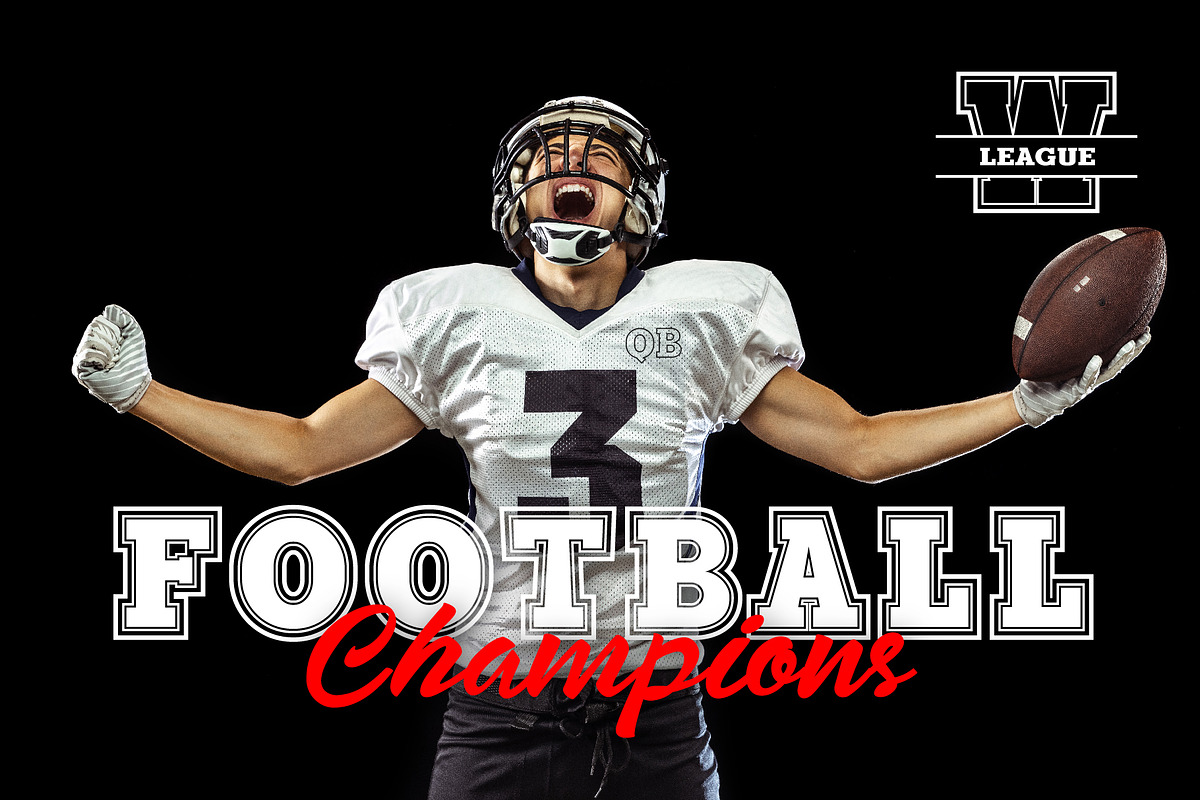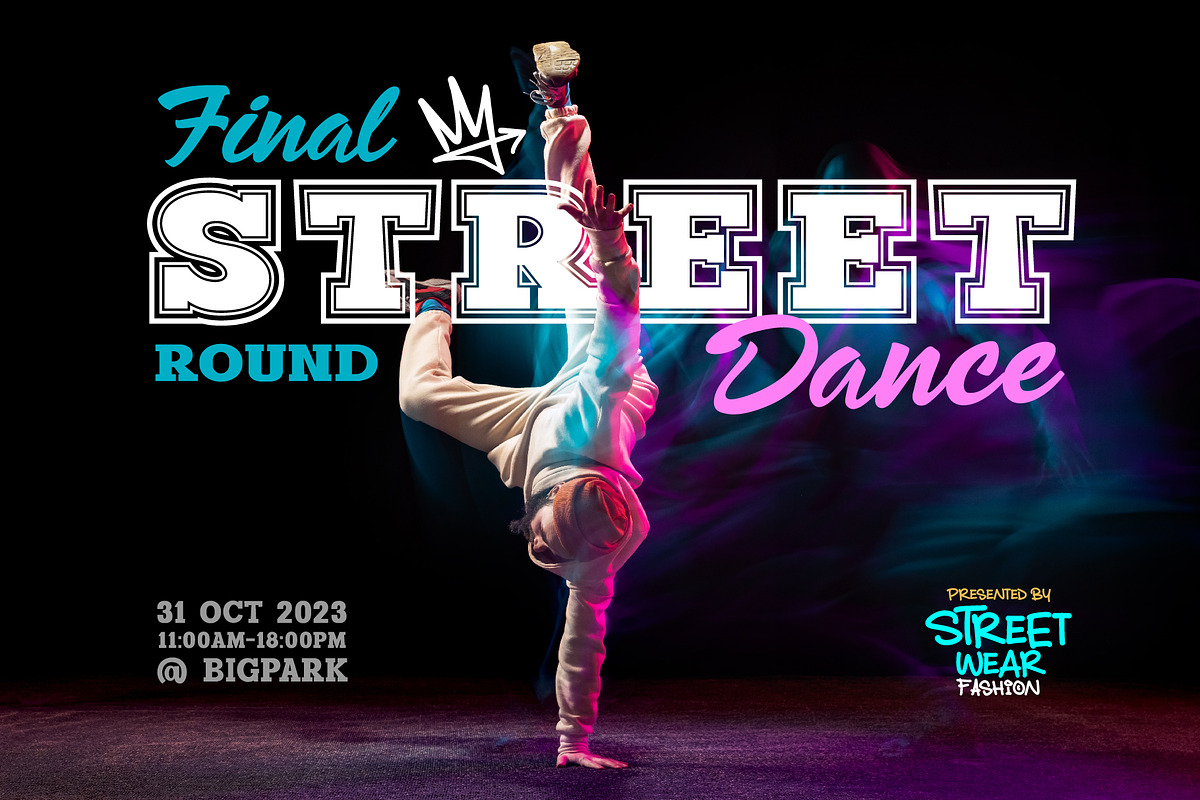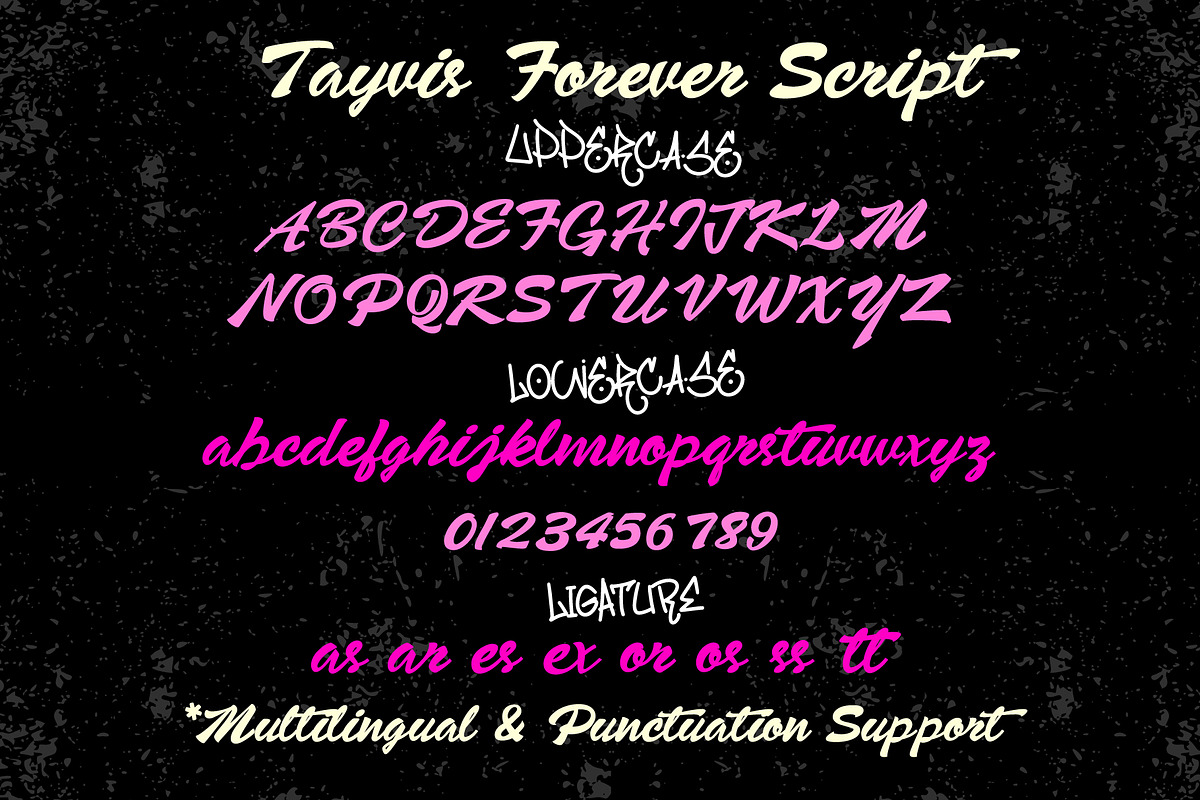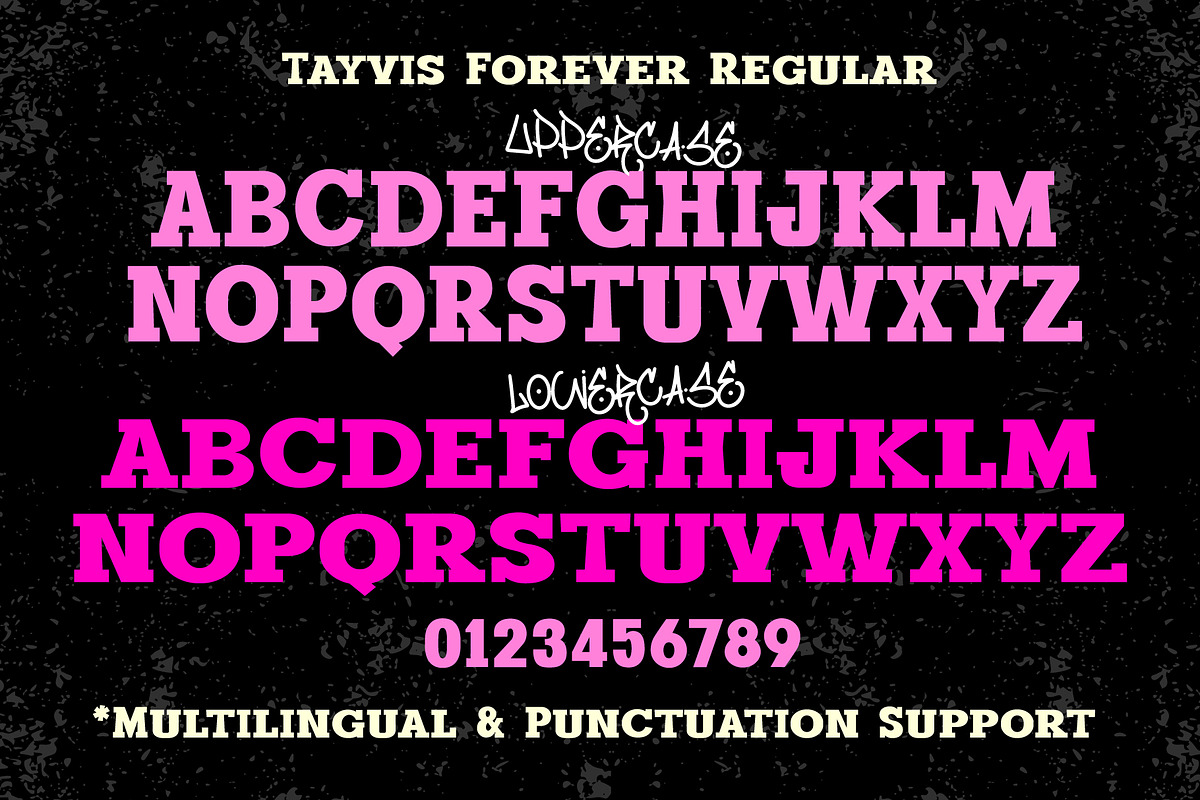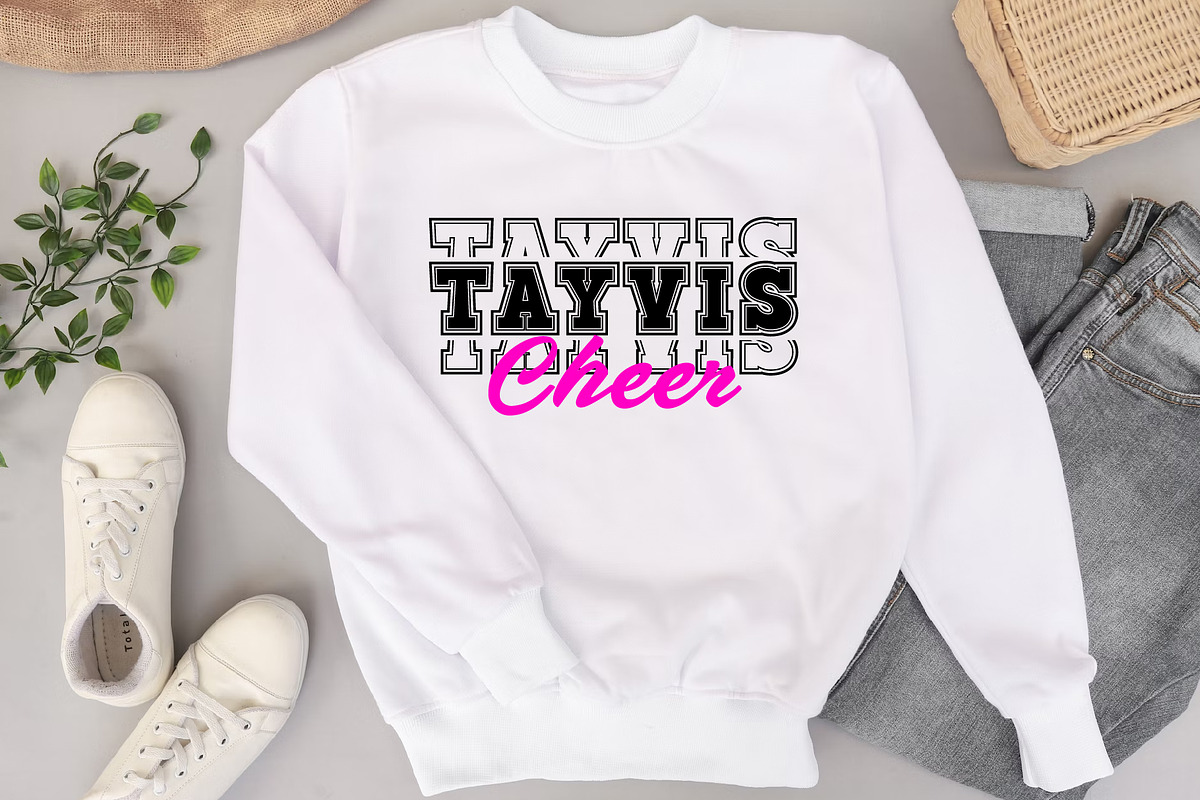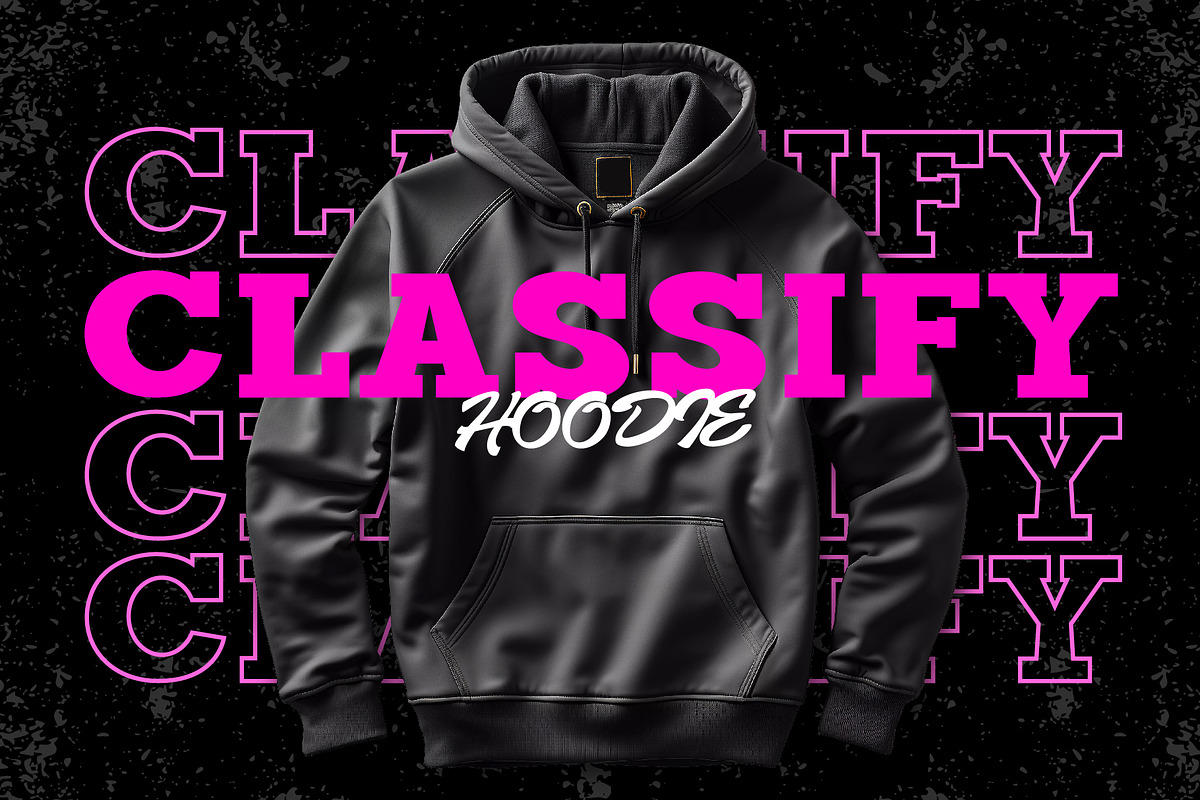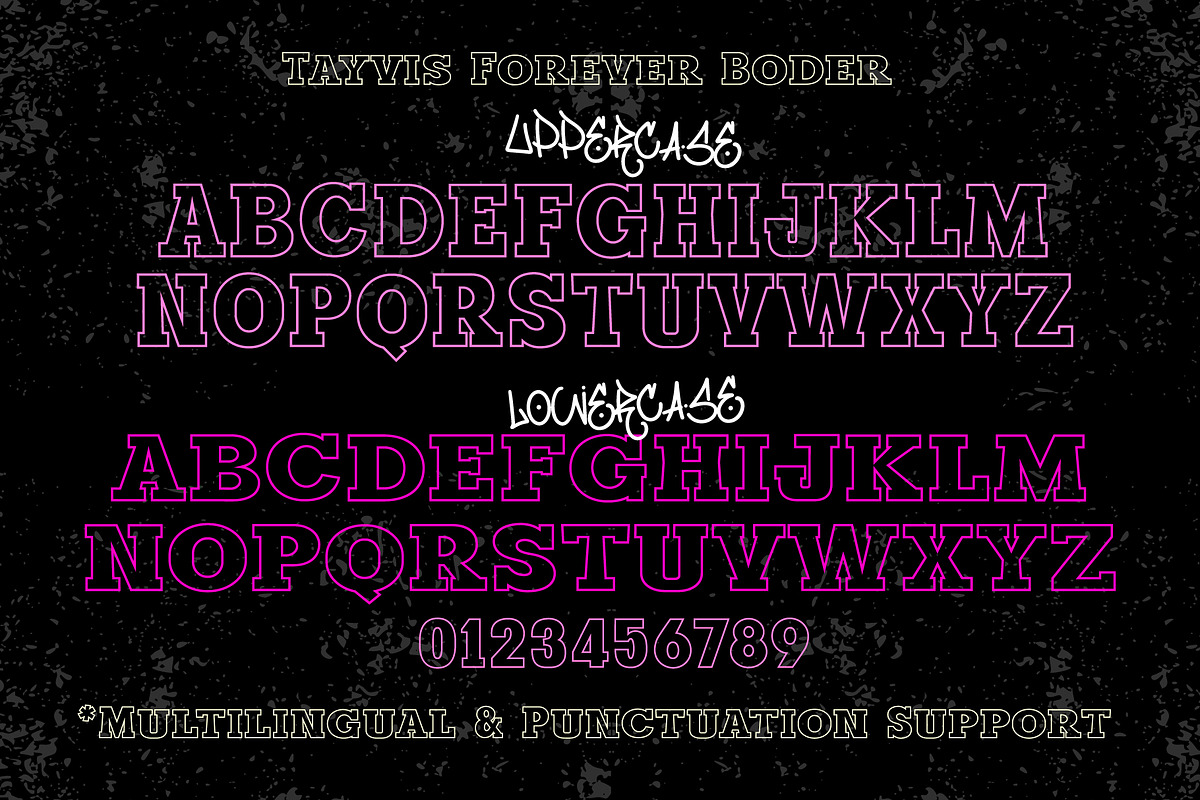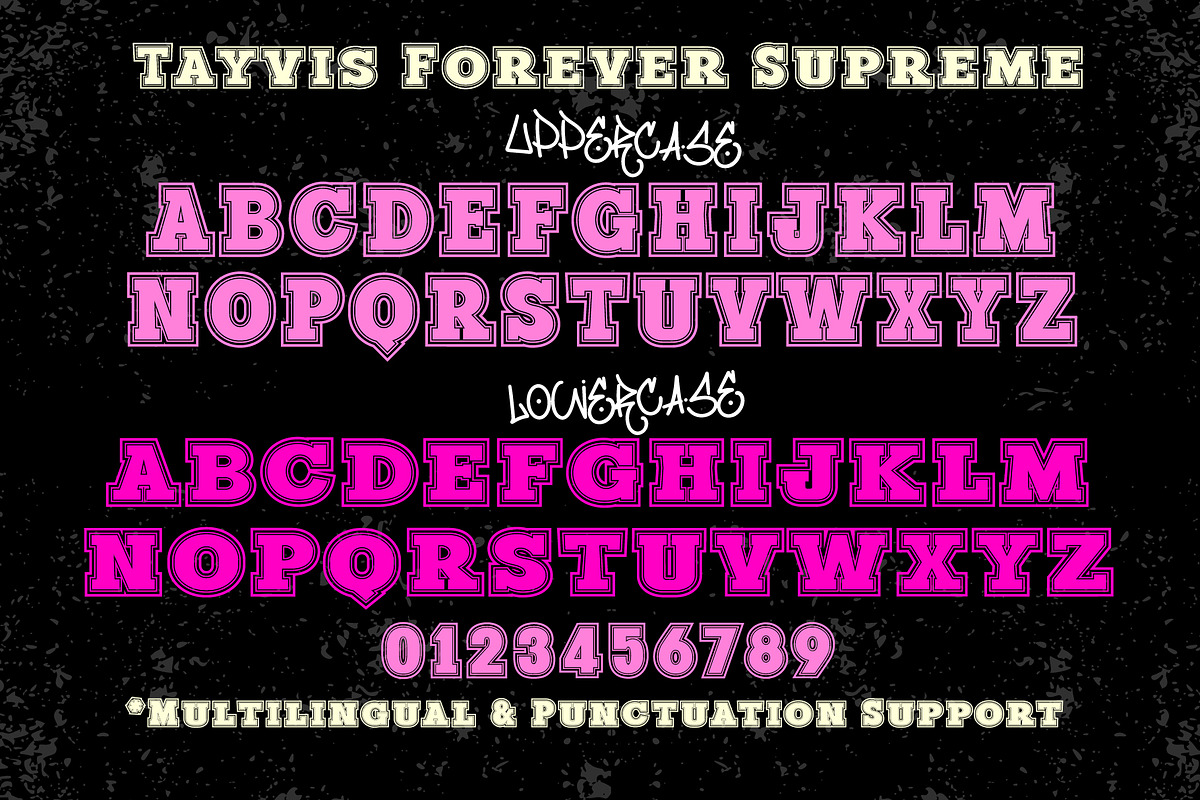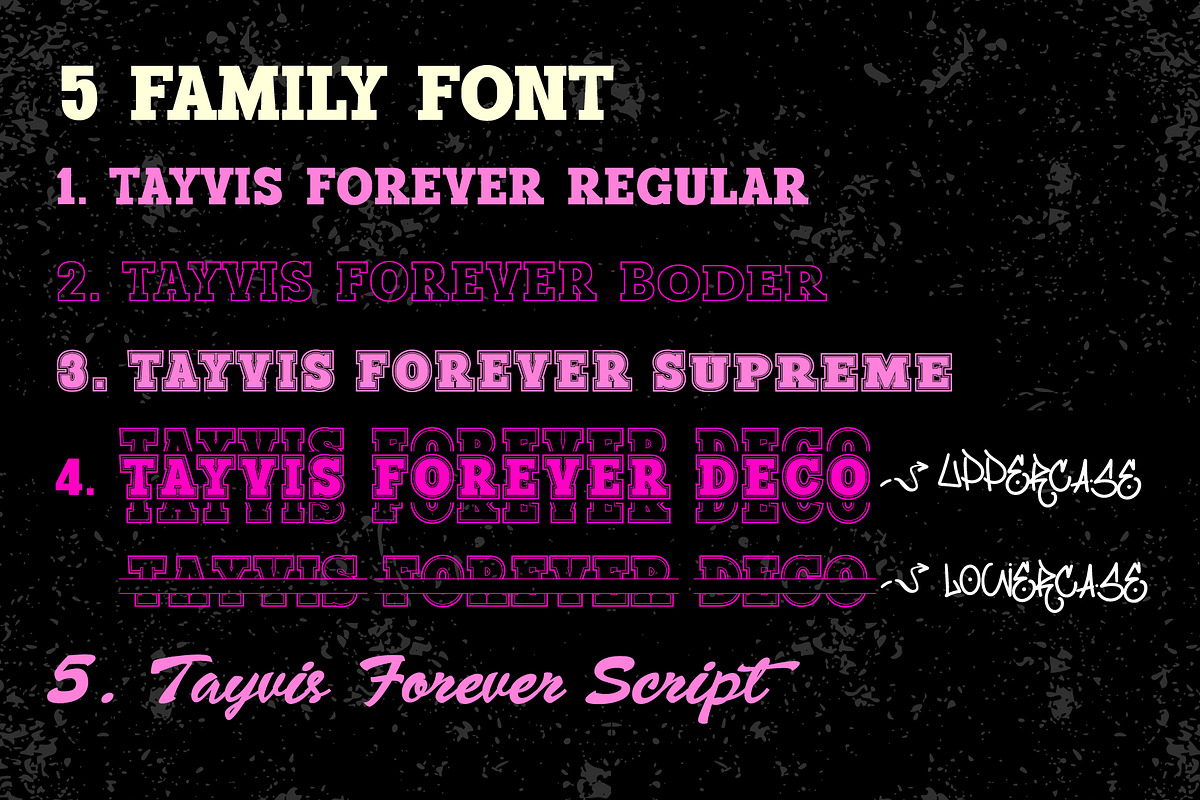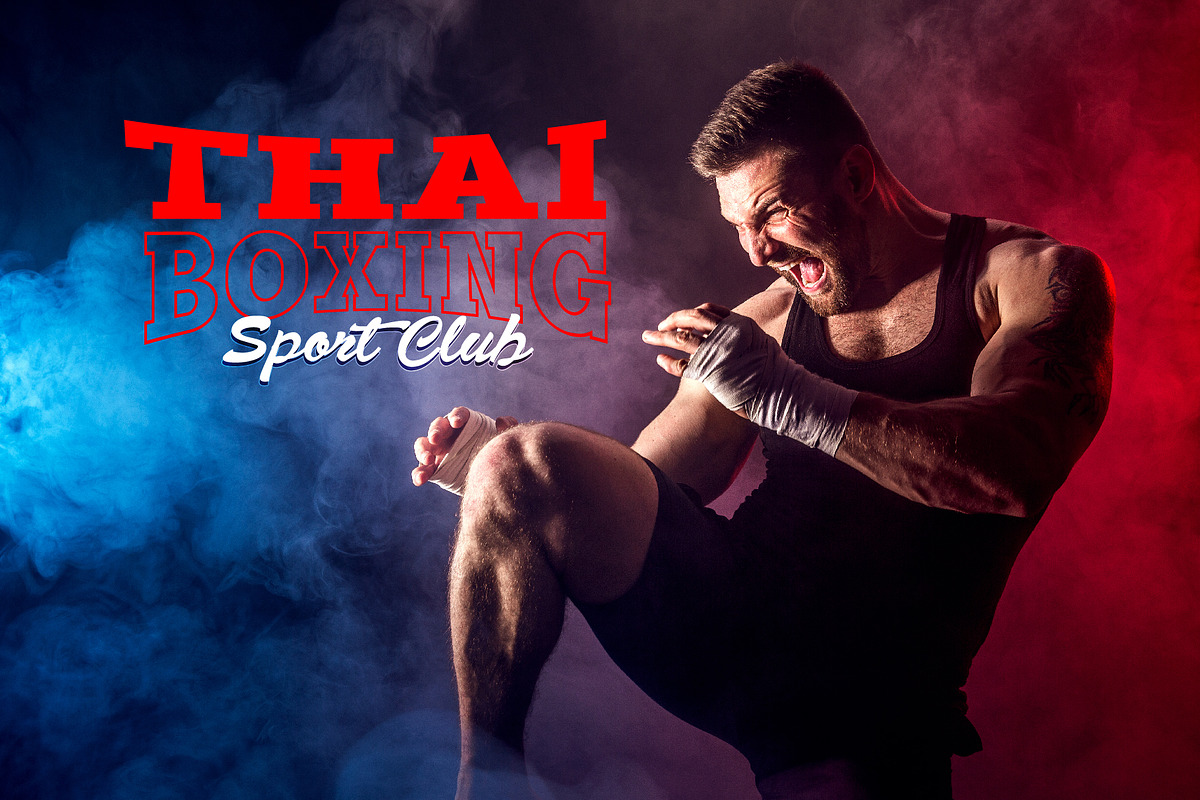
Tayvis Forever
Tayvis Forever is a sports display font and marker handwritten font. It is a perfect pairing font and playful designs such as poster ads, sports t-shirts, merchandise, logotypes, and much more. Use this font for your designs and explore its endless possibilities.